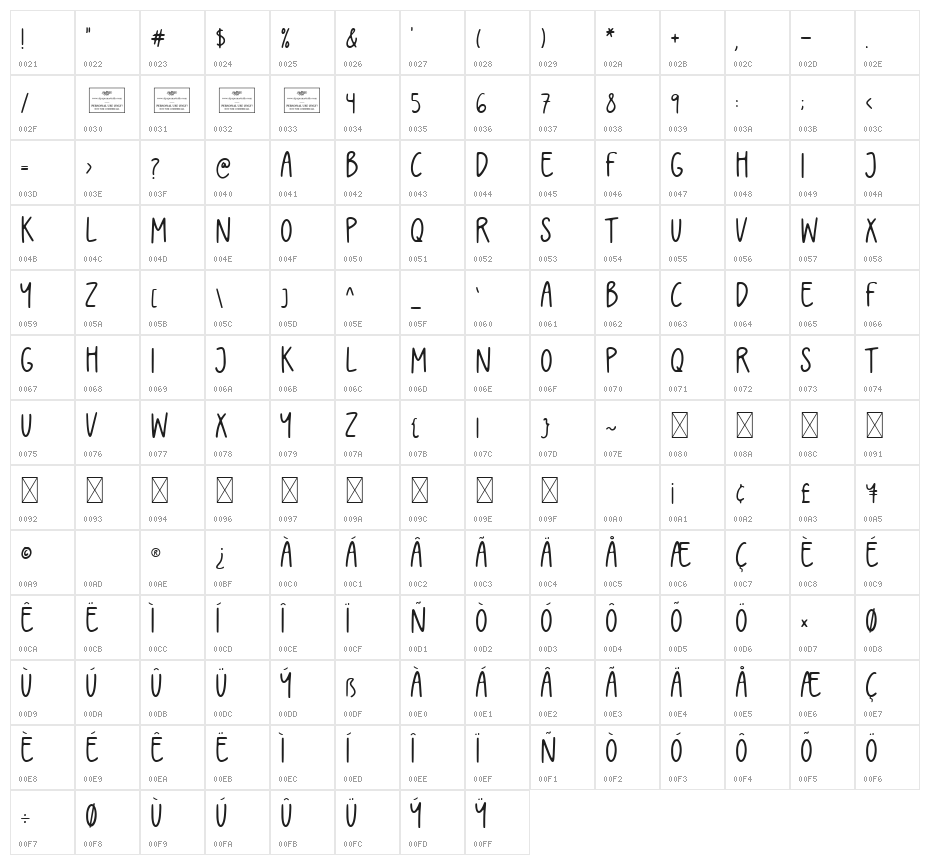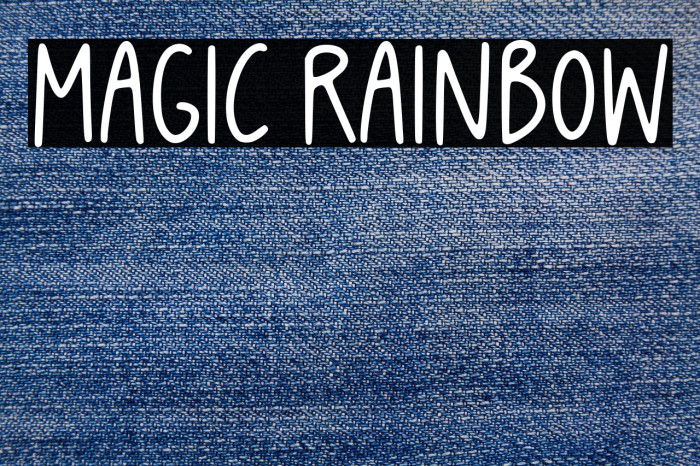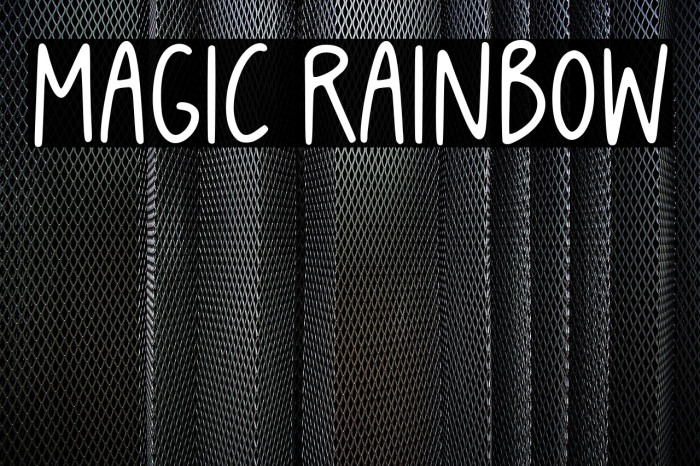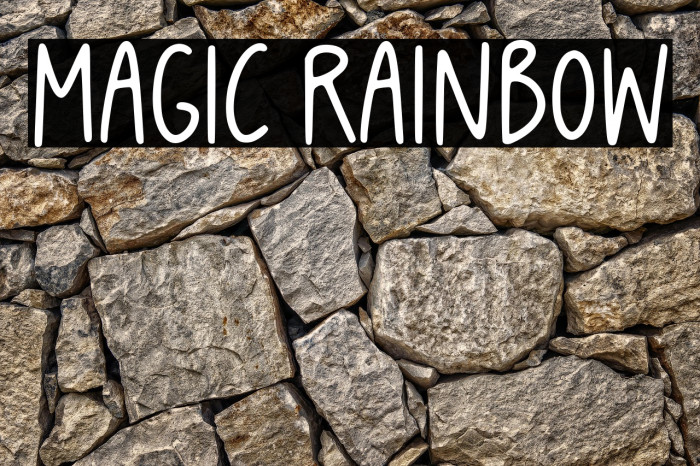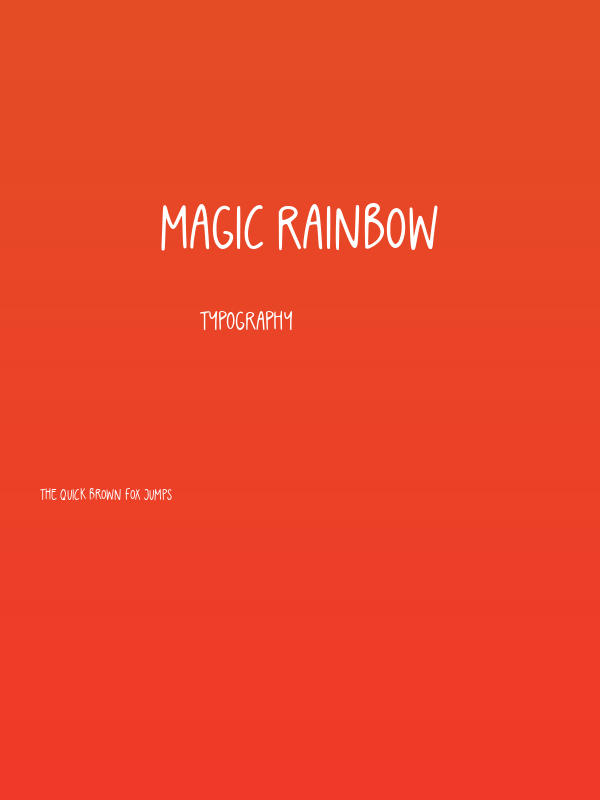
Magic Rainbow Font
Magic Rainbow Description
This playful and whimsical font features a handwritten style with smooth, rounded edges and a casual, friendly appearance. The letters are slightly elongated, giving them a unique and distinctive look. The font maintains a consistent stroke width throughout, contributing to its clean and approachable feel. It includes both uppercase and lowercase letters, numbers, and a variety of special characters, making it versatile for different design needs. The overall style is informal and fun, suitable for projects that aim to convey a sense of creativity and playfulness.
| Overall Style | Playful |
| Use Case | Logos, Posters, Greeting Cards |
| Proposed Projects | Ideal for children's books, greeting cards, playful branding, and creative posters. |